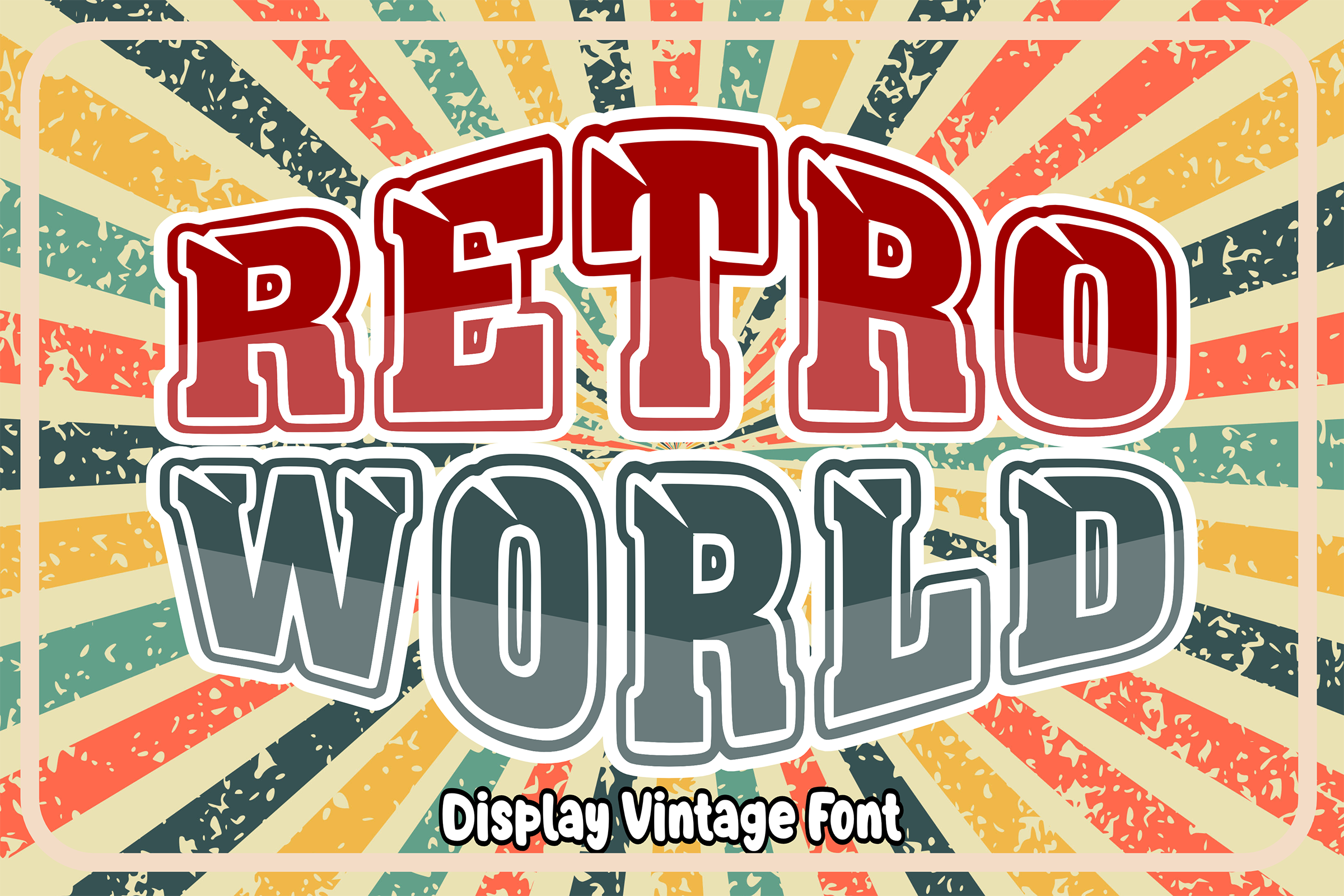
Retro World - Retro Font Types
Embrace a blast from the past with Retro World, a typeface that exquisitely captures the vintage charm of classic signage. Its bold letterforms radiate an irresistible allure, making you reminisce the good old days while its contemporary touch keeps you grounded in the present. Perfect for turning heads with striking headlines, attention-grabbing posters, or captivating branding, Retro World is a true showstopper. Each glyph promises a burst of energy and a dash of charm that is sure to make a statement. Immerse yourselves in the perfect fusion of old-school brilliance and modern elegance with Retro World.